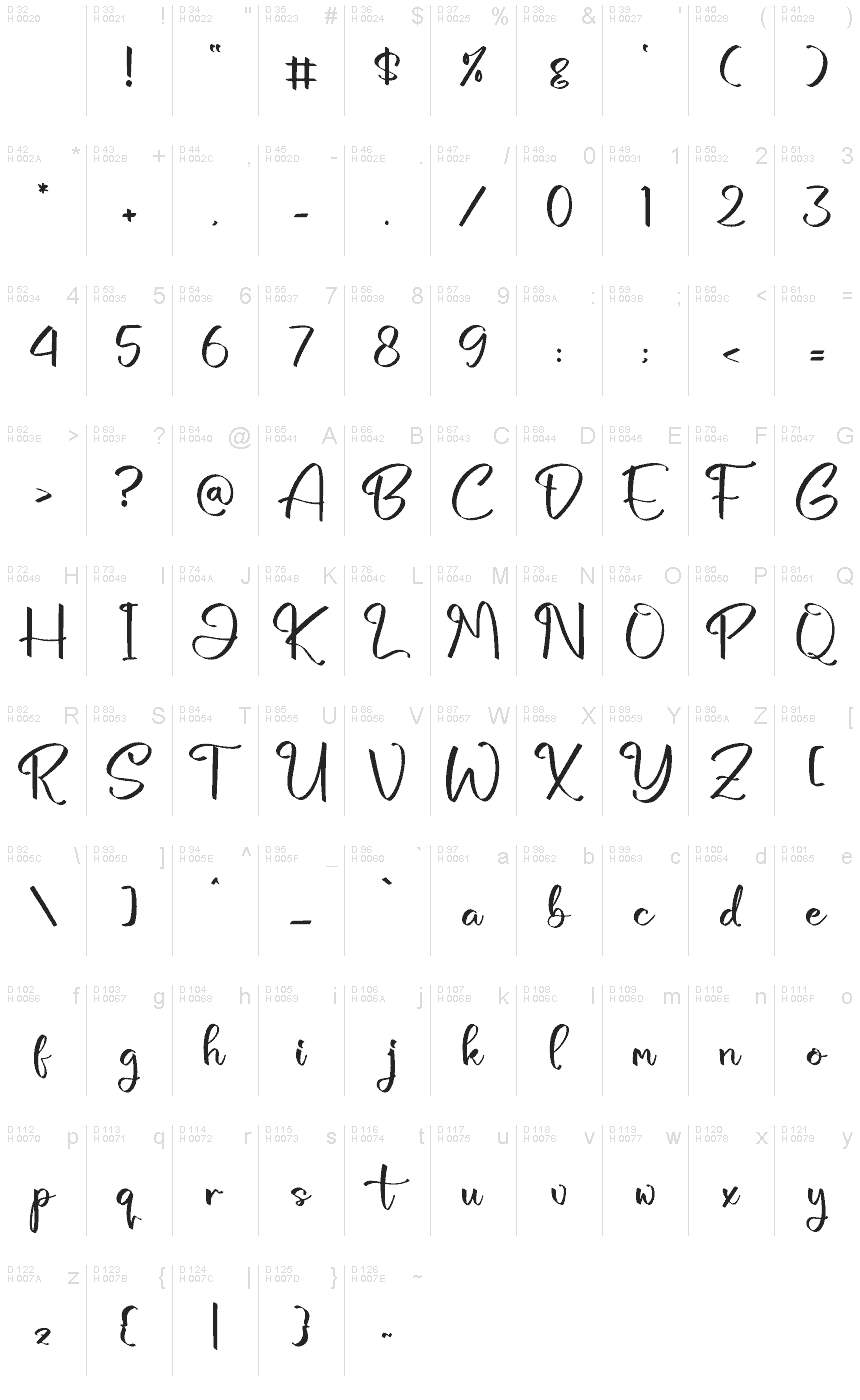
Bottanicy Sketch
Bottanicy Sketch font by Letterena Studios is an elegant, modern script rich with flowing beauty and casual refinement. Its enchanting nature shines in every character, a testament to its refined style and the artistic penmanship that went into crafting it. This free handwritten font takes inspiration from the softer sides of contemporary design.
Achieve impressive designs with Bottanicy Sketch for logos, headers, branding packages, covering magazine articles, crafting packaging designs for delicate luxury goods. This sophisticated typeface is also perfect for cards wishing friends and family well on major life occasions such as birthdays or weddings along with invitations.